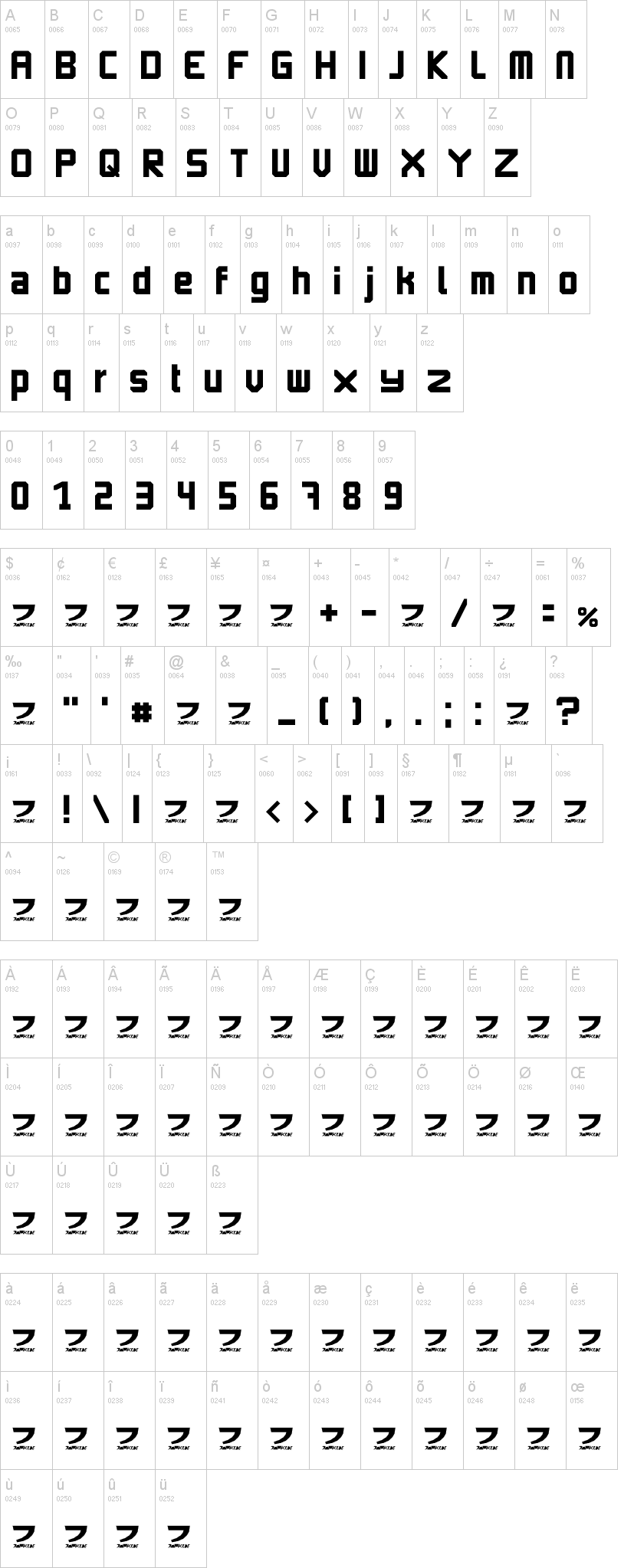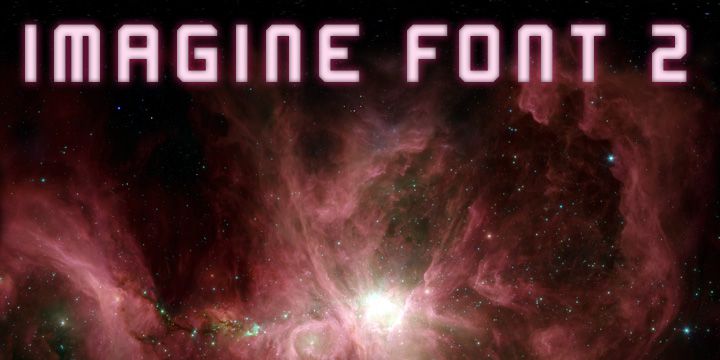
Шрифт Imagine Earth
This tiny and futuristic small cabs creation was created for my Game Project "ImagineEarth.info" A nice simple techno Sci-Fi for headlines and styles!